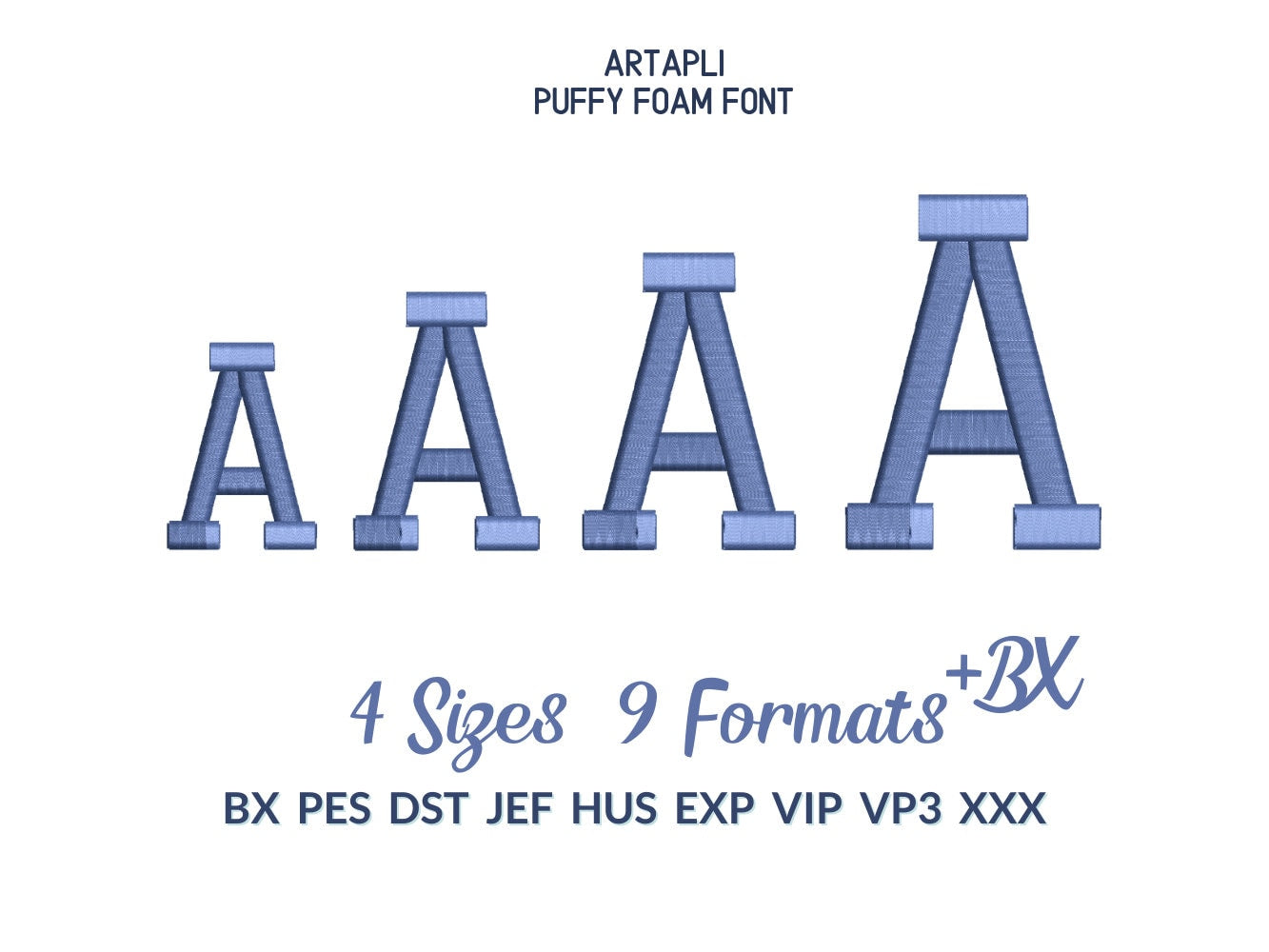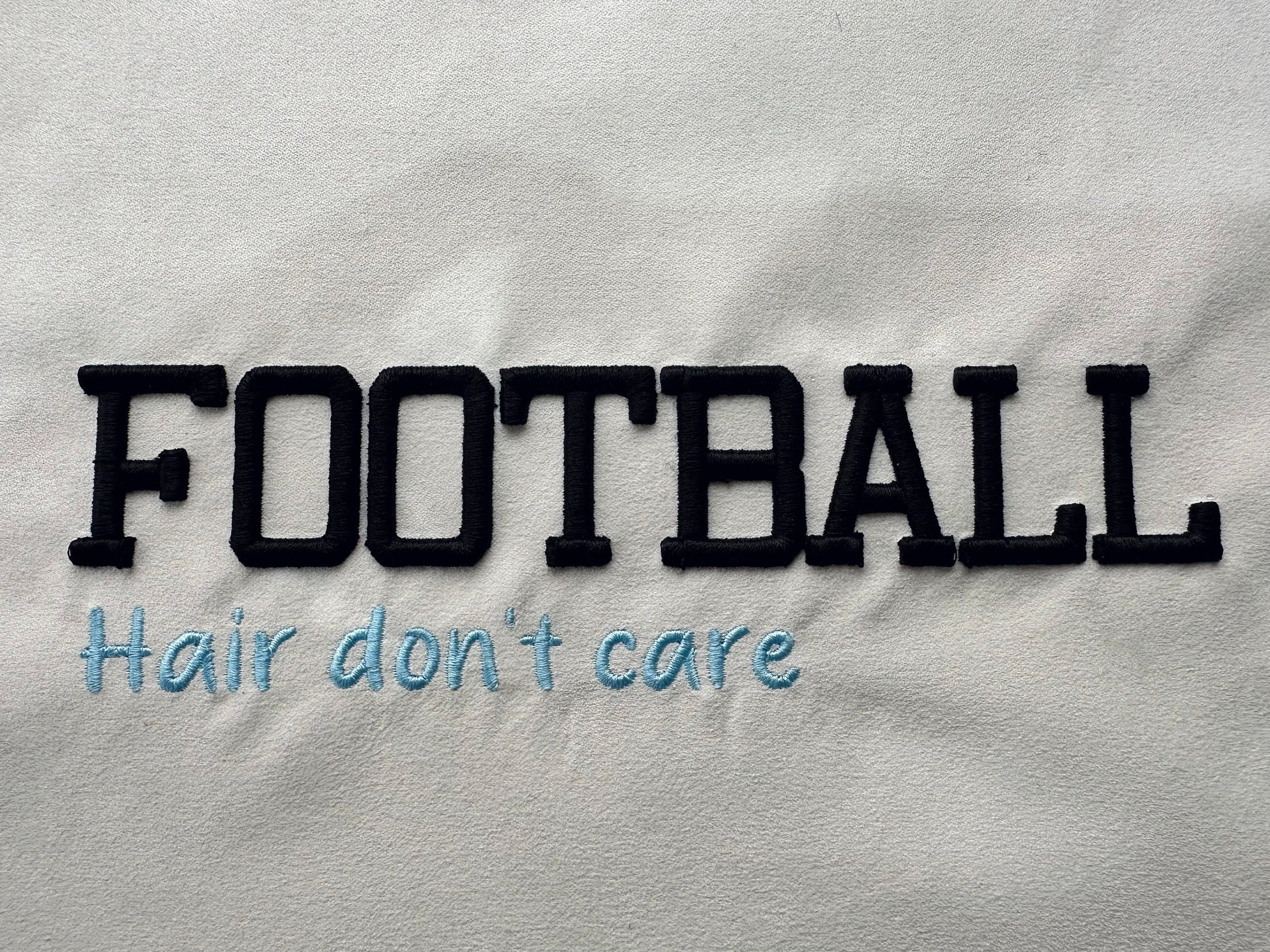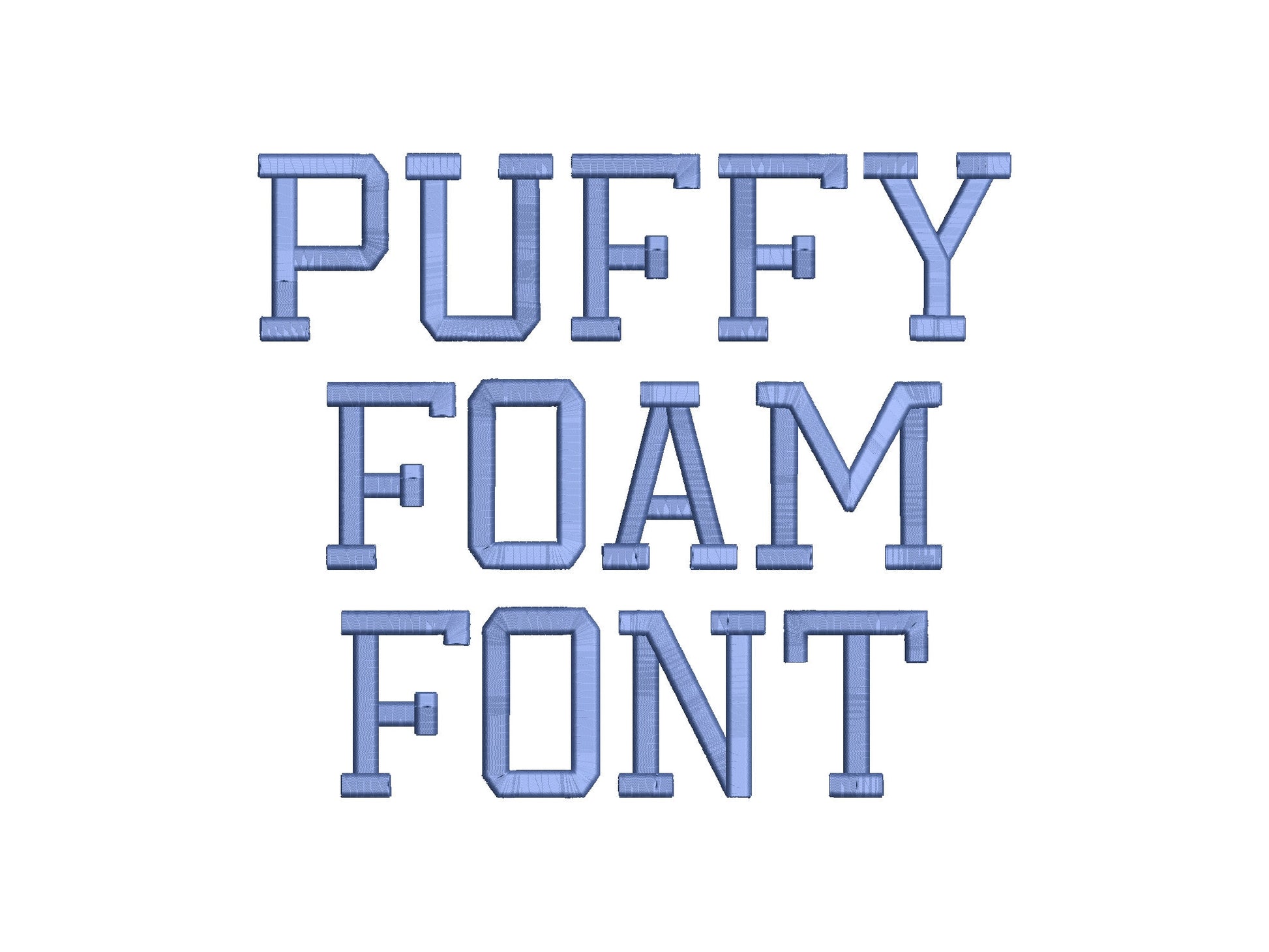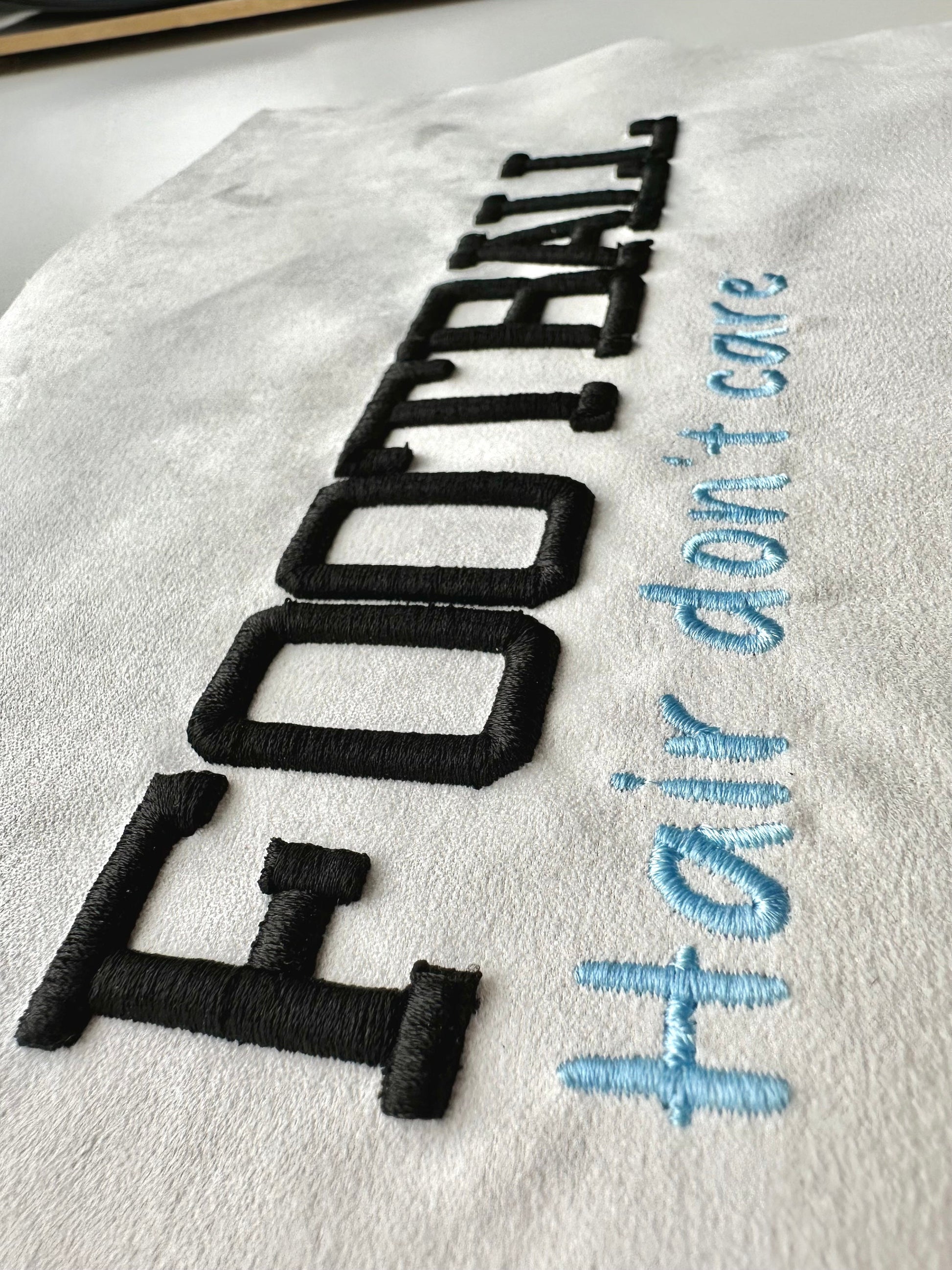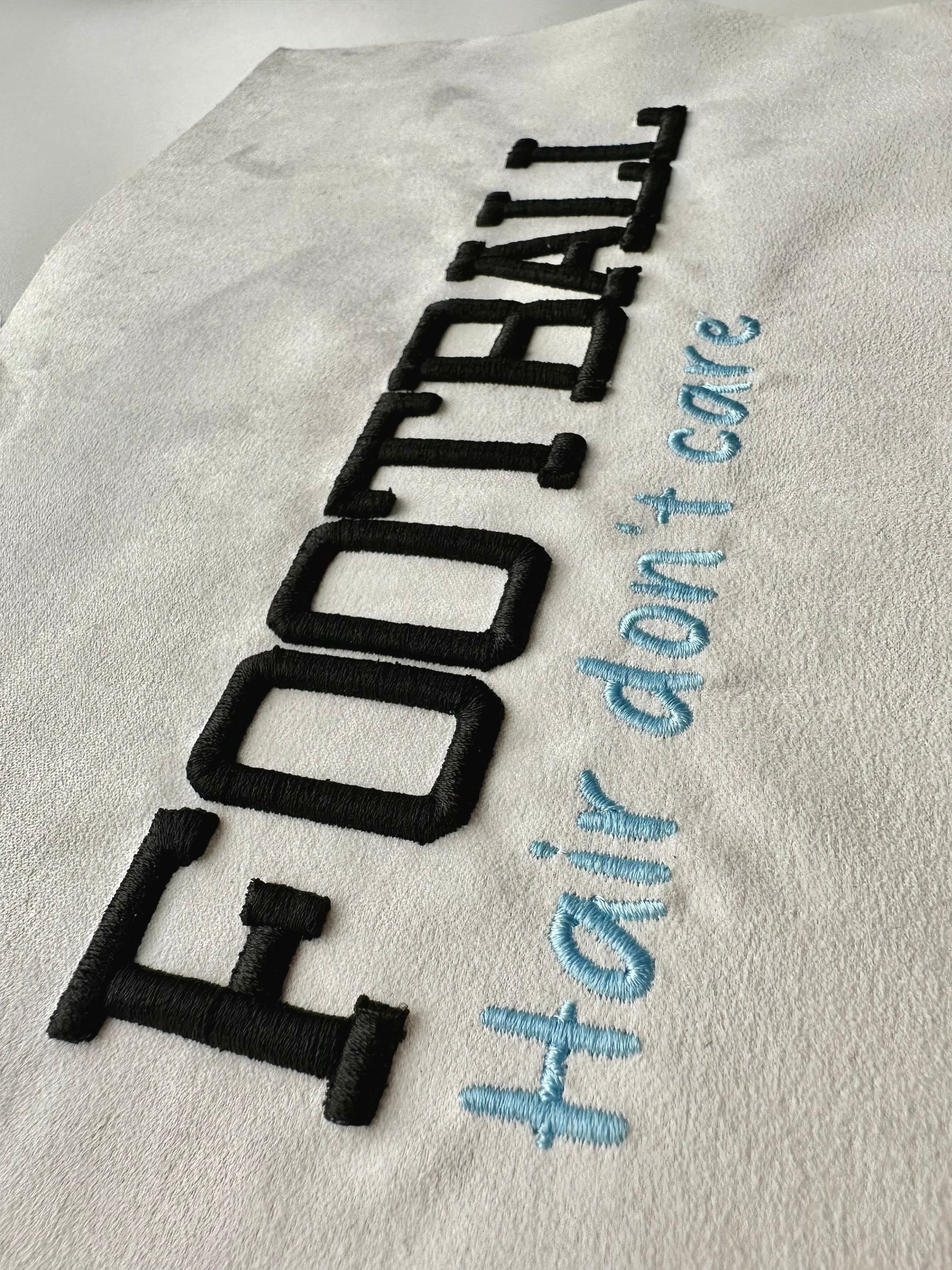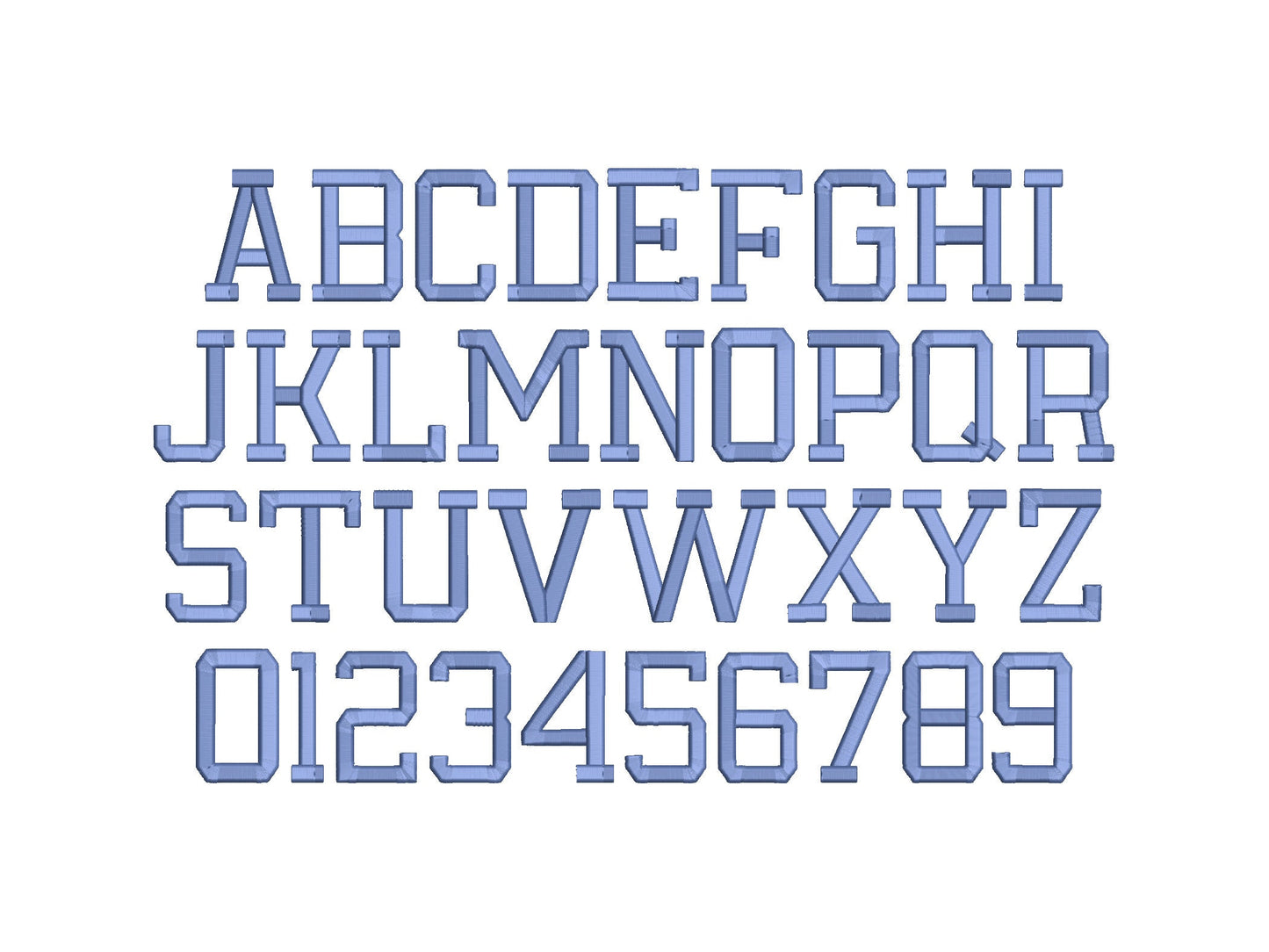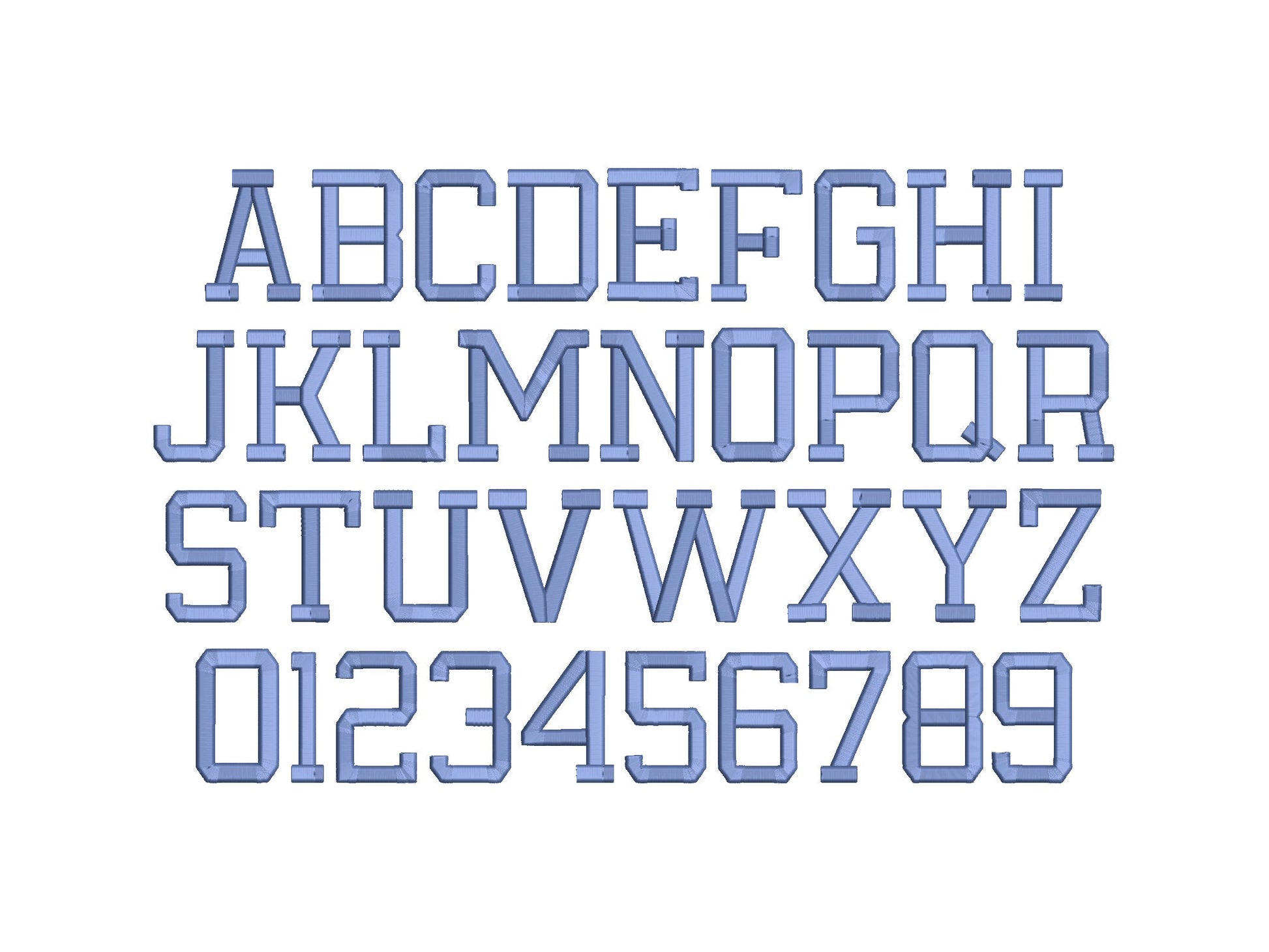
Or click to open the linkA classy 3D puffy narrow block font stitched over foam. Great for raised letters on hats, sweatshirts, jackets and bags.
Uppercase letters A to Z and numbers 0 to 9. Five sizes: 1.5, 1.8, 2.3, 2.6 and 3.1 inches. Needs puffy foam; 3 mm foam works well.